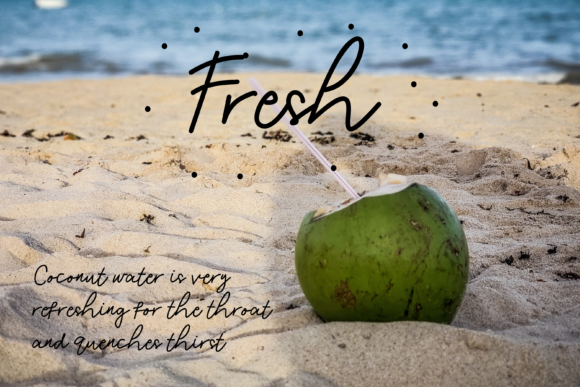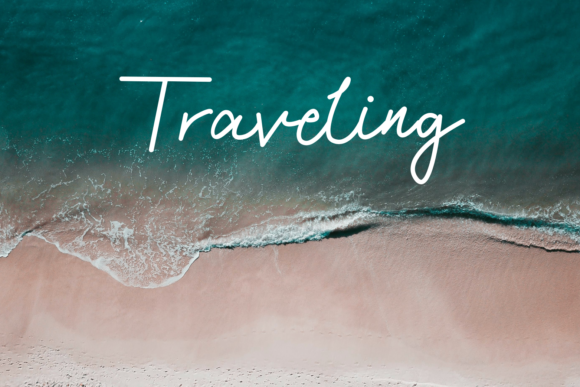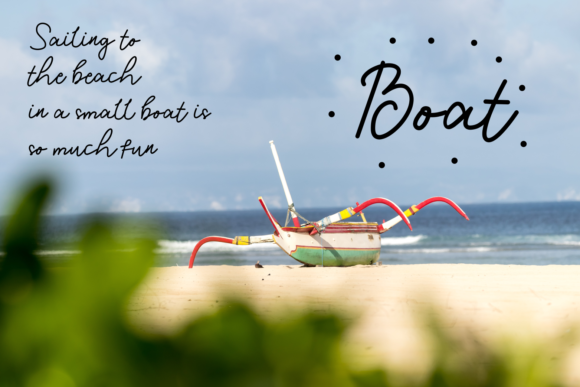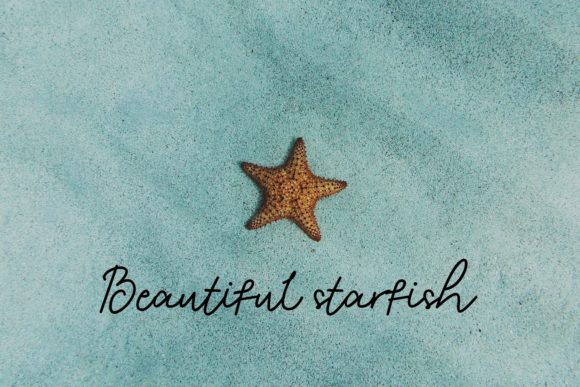
Introducing Beach Font: Elevate Your Design with Elegant and Curvy Lines
Are you looking for a font that can add a touch of sophistication and elegance to your design projects? Look no further than Beach Font, a slim handwritten font that is sure to make your work stand out. With its beautiful, curvy lines and classic feel, Beach Font is perfect for a wide range of design applications, from product packaging and branding projects to magazine covers, social media graphics, and wedding designs.
What Makes Beach Font Special?
Beach Font is a unique and versatile font that offers a range of benefits for designers and crafters. Here are just a few of the things that make it special:
- Elegant and Curvy Lines: Beach Font features beautiful, flowing lines that give it a classic and sophisticated feel. Whether you’re looking to add a touch of elegance to a product label or create a stunning wedding invitation, Beach Font is the perfect choice.
- Slim and Modern: Despite its classic feel, Beach Font is a slim and modern font that works perfectly in a wide range of design applications. Its slender lines make it ideal for use in titles, headings, and other design elements where you want to make a big impact.
- Handwritten Charm: Beach Font has a beautiful, handwritten charm that gives it a personal and unique feel. Whether you’re looking to create a bespoke brand identity or add a touch of personality to your design projects, Beach Font is the perfect choice.
Beach Font is a versatile font that can be used in a wide range of design applications. Here are just a few ideas to get you started:
- Product Packaging: Add a touch of elegance and sophistication to your product packaging with Beach Font. Whether you’re designing labels for food products, cosmetics, or other goods, Beach Font is the perfect choice.
- Branding Projects: Create a bespoke brand identity with Beach Font. Its unique and elegant lines make it perfect for use in logos, business cards, and other branding materials.
- Magazine Covers: Make your magazine cover stand out with Beach Font. Its bold and eye-catching lines make it perfect for use in titles and headings.
- Social Media Graphics: Add a touch of personality to your social media graphics with Beach Font. Whether you’re creating Facebook posts, Instagram stories, or Twitter headers, Beach Font is the perfect choice.
- Wedding Designs: Create beautiful and elegant wedding designs with Beach Font. Its classic and sophisticated lines make it perfect for use in wedding invitations, programs, and other wedding materials.
Why Choose Beach Font?
There are many fonts to choose from, but Beach Font stands out for its unique combination of elegance, sophistication, and versatility. Here are just a few reasons why you should choose Beach Font for your next design project:
- Unique and Eye-Catching: Beach Font is a unique and eye-catching font that is sure to make your design project stand out.
- Elegant and Sophisticated: Beach Font has a classic and sophisticated feel that makes it perfect for a wide range of design applications.
- Versatile: Beach Font is a versatile font that can be used in a wide range of design applications, from product packaging and branding projects to magazine covers, social media graphics, and wedding designs.
In conclusion, Beach Font is a beautiful and elegant font that is perfect for designers and crafters looking to add a touch of sophistication and elegance to their design projects. With its unique combination of curvy lines, slim and modern feel, and handwritten charm, Beach Font is sure to make your work stand out. Whether you’re designing product packaging, branding projects, magazine covers, social media graphics, or wedding designs, Beach Font is the perfect choice.